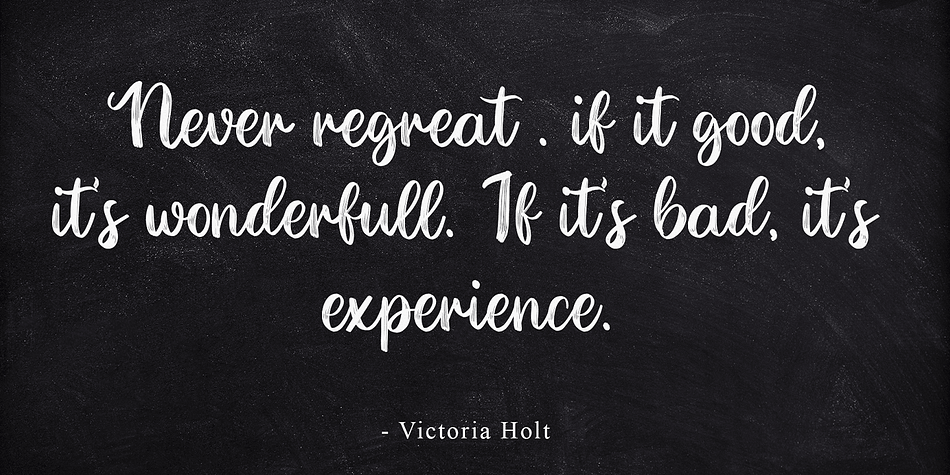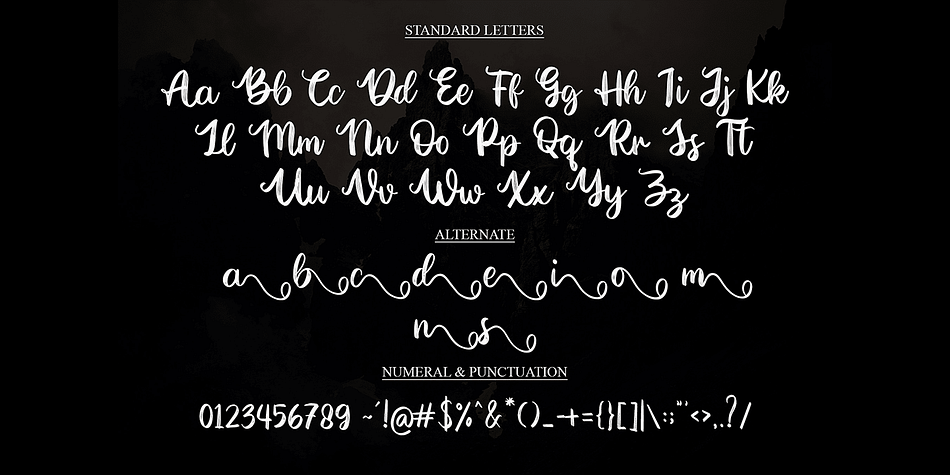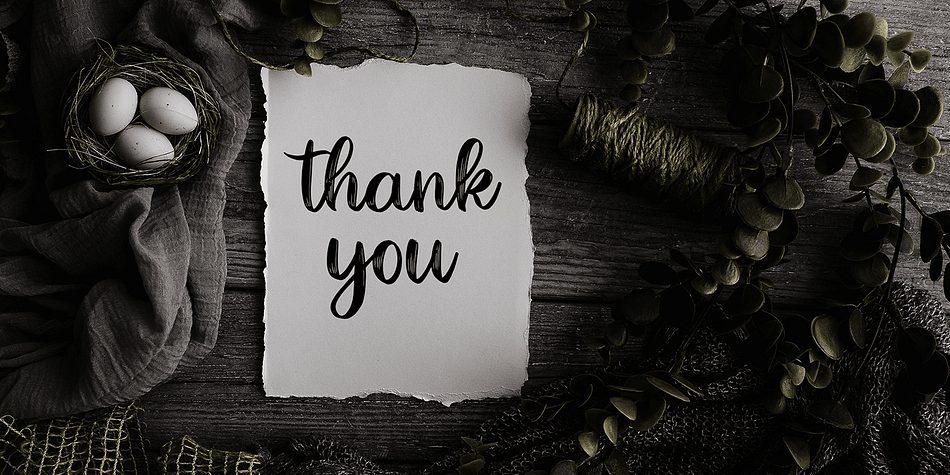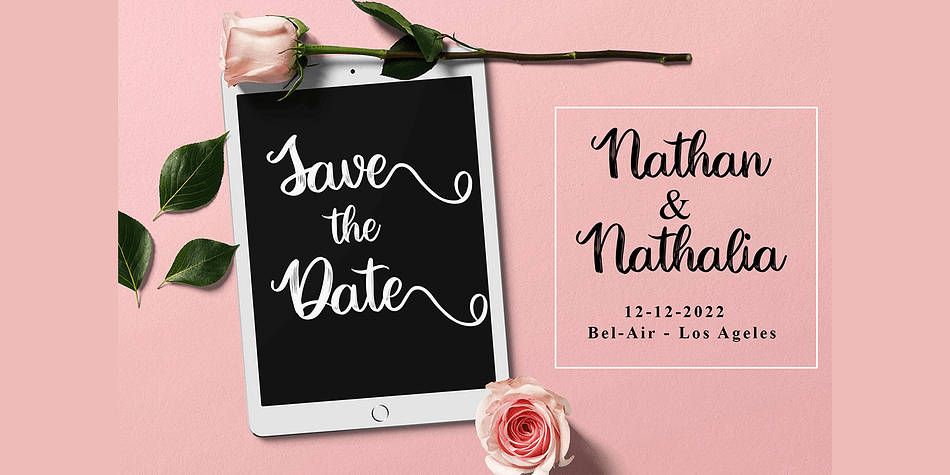
Mountains
Designed by Najmus Tsaqib, Mountains is a modern calligraphy font published by NT Creator.
Mountains is a well balanced and delicate brushed script font that exudes elegance and class.
This font was particularly crafted for those who need a beautiful and refreshing look to their designs.
Foundry NT Creator
Designer Najmus Tsaqib